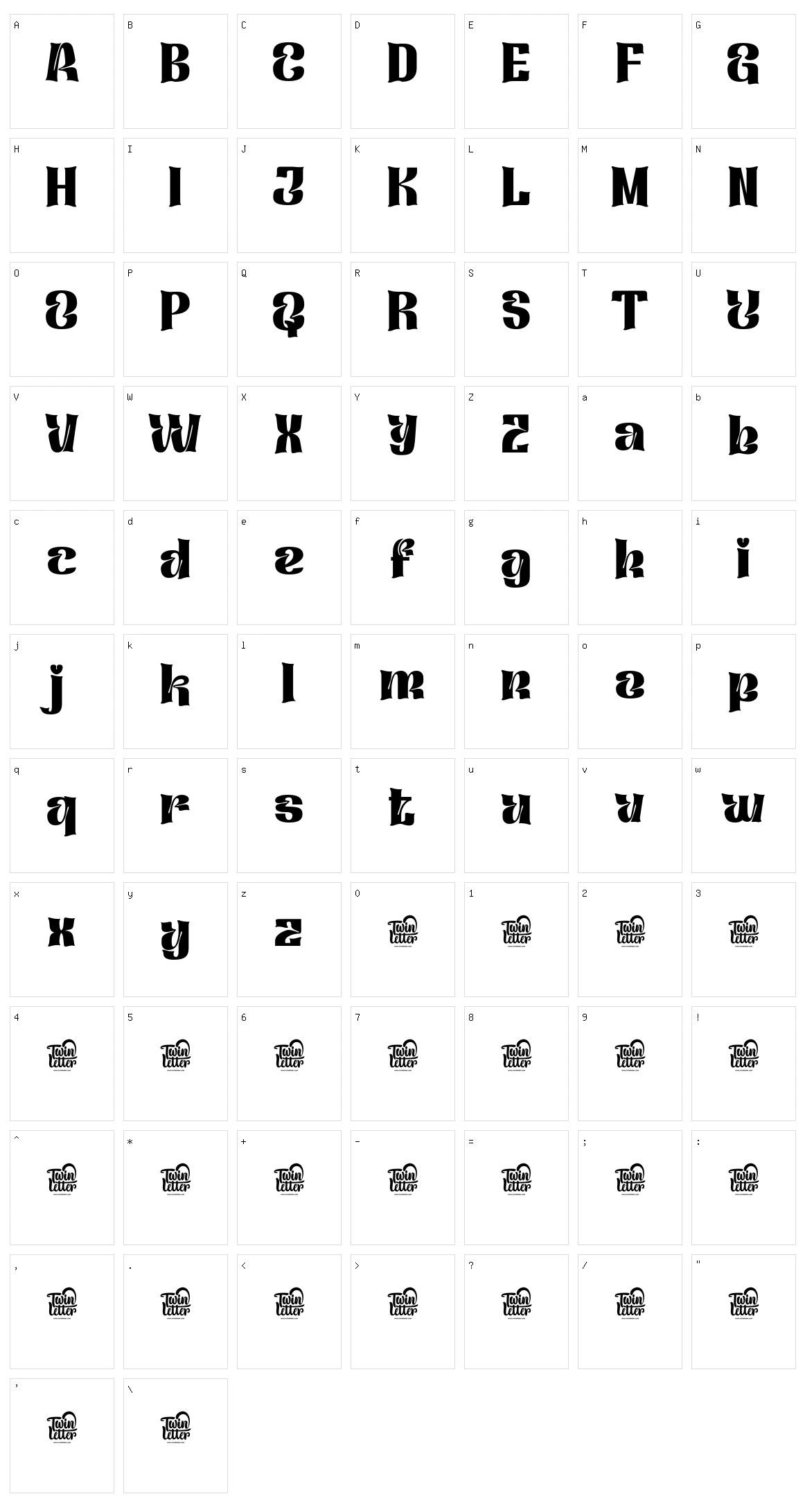
The free font Qafidut is carefully designed by twinletter, showcasing a thoughtful balance of creativity and usability and falls under the Groovy font style. When you download the ZIP file, it contains only 15.79 KB of font files, making it lightweight and quick to download. Please review the license details below to understand permitted usage and distribution rights. If license information is not available, we recommend using this font for personal projects only or contacting the author directly for commercial usage permissions.